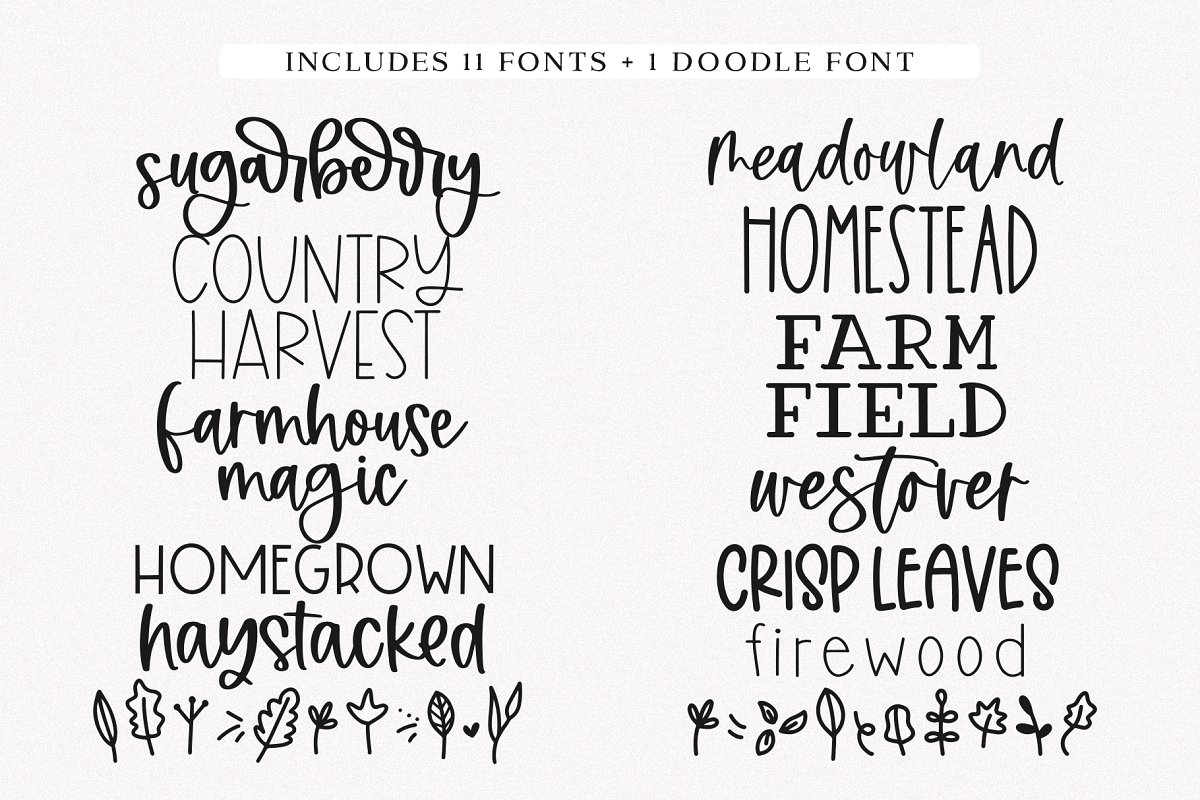
About the Farmhouse Bundle Part Three Font
Farmhouse Font Bundle – Vol, 3 Farmhouse Bundle Volume One – https://crmrkt, com/5d632EFarmhouse Bundle Volume Two – https://crmrkt, com/mWaPArModern Farmhouse Bundle – https://crmrkt, com/5d632EThis bundle includes a handpicked selection of fonts, perfect for your farmhouse and country designs! Fonts Included SugarberryCountry HarvestMeadowlandHomesteadFarmhouse MagicHomegrownFarm FieldHaystackedCrisp LeavesWestoverCrisp Leaves ExtrasThese fonts are perfect for your cricut projects, farmhouse signs, svg designs, procreate, social media, stickers, pantry labels and more!Includes TTF/OTF Thank you!